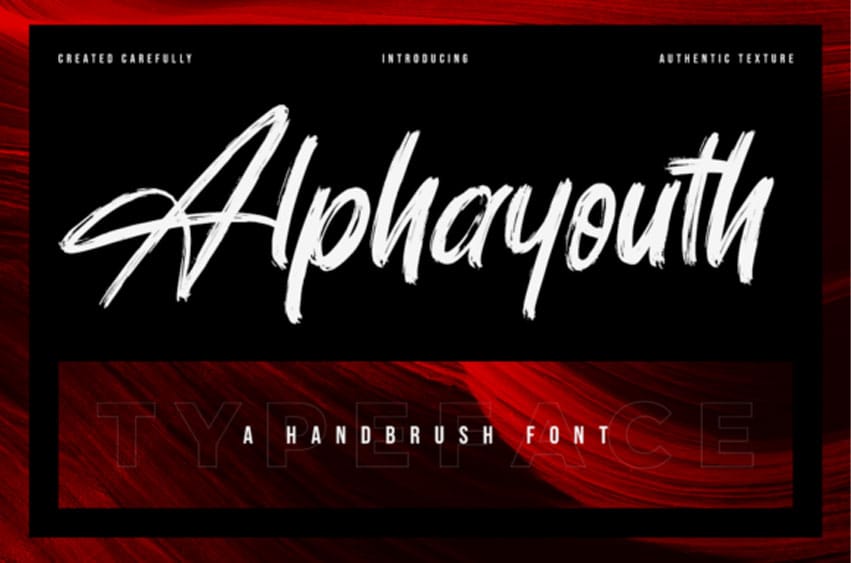
Alphayouth Font is a brushed script font featuring charming, playful characters that seem to dance along the baseline.
Add this font to your most creative ideas, and notice how it makes them stand out!